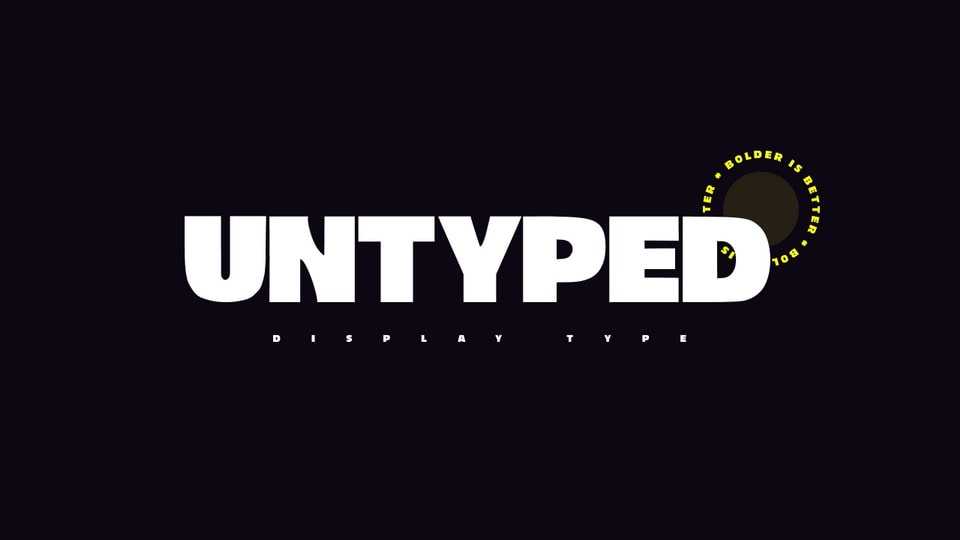
Download Untyped font, a bold, display typeface created as a typographic experiment rooted in structure and minimalism. Designed exclusively for titles, headers, and statement visuals.
Designer: Naseer Ahmed